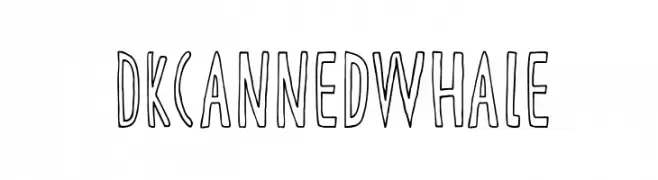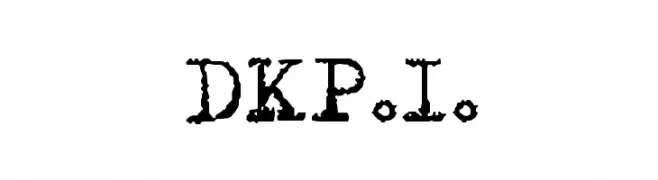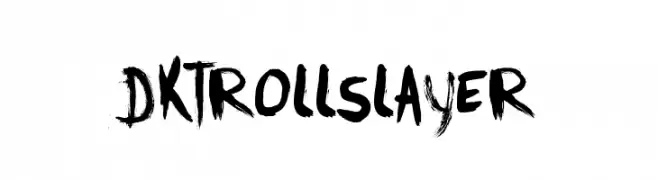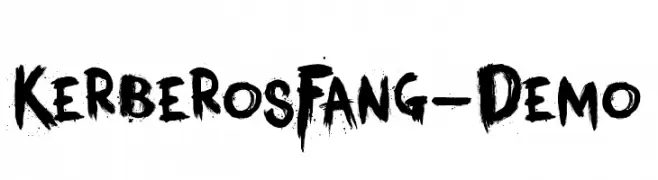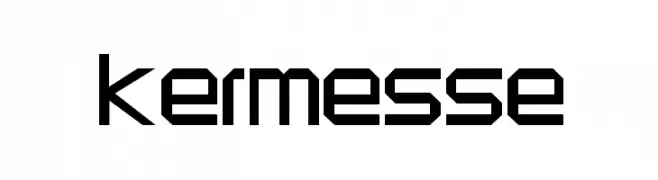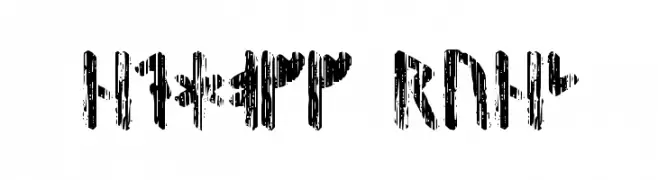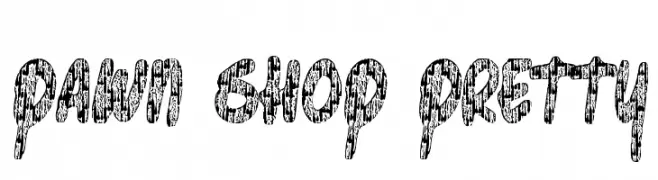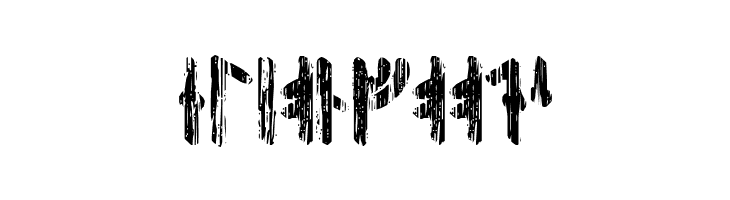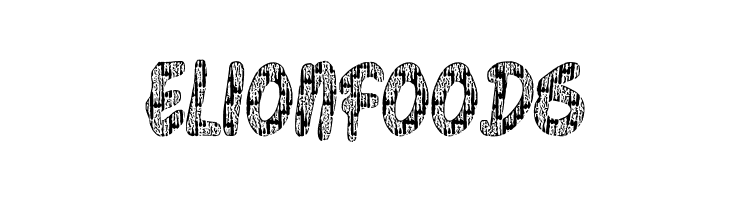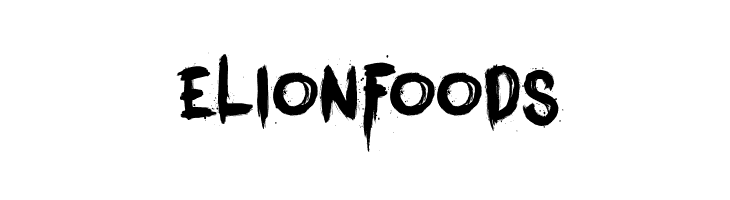
A bold, pixelated font with a retro, digital aesthetic.
A distressed, runic-style font with a bold, textured appearance.
A bold, textured font with a distressed, grunge style.
A distressed, grunge-style font with a typewriter-like appearance.
A bold, brush-stroke font with a chaotic and rebellious aesthetic.
A bold, hand-drawn font with a sketch-like, dynamic appearance.
A chaotic, graffiti-inspired font with irregular, jagged strokes.
A bold, geometric font with a futuristic and digital aesthetic.
A playful, hand-drawn font with tall, narrow letters and consistent stroke width.